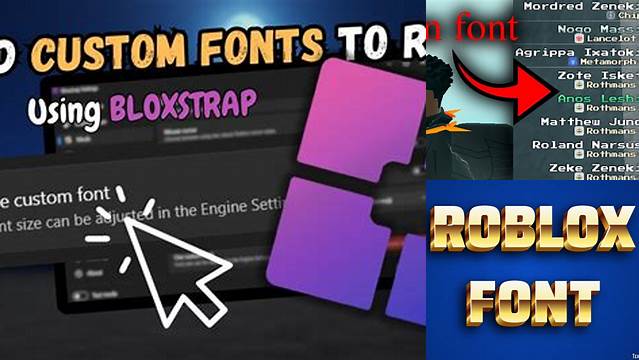
Roblox Studio Custom Fonts: Enhance Your Game's Text
Hey guys! Ready to level up your Roblox game design? This guide dives deep into Roblox Studio custom fonts, unlocking a whole new world of creative possibilities for your games. Forget those basic default fonts; we're talking about truly unique text that screams personality and professionalism. From understanding the basics to advanced implementation, we'll cover everything you need to know to make your game's text pop. Let's get started!
Unlocking the Power of Roblox Studio Custom Fonts
Roblox Studio custom fonts are more than just a cosmetic upgrade; they're a crucial element in shaping your game's identity and enhancing player experience. The default fonts, while functional, can quickly become bland and generic. Think about it – the text is everywhere in your game: menu options, in-game instructions, dialogue, and even the UI elements. Using the right fonts can significantly impact how players perceive your game, influencing their engagement and creating a more immersive environment. A well-chosen font can convey the mood, tone, and style of your game, drawing players in and encouraging them to spend more time in your virtual world. It’s like choosing the perfect outfit for your game; it sets the stage for the entire experience.
Beyond aesthetics, the appropriate use of Roblox Studio custom fonts also plays a pivotal role in readability and user experience. Legibility should be your top priority. You might love a fancy, ornate font, but it’s useless if players can’t easily read the text. Consider the context of your game and the demographic you're targeting. Are you aiming for a more youthful and energetic vibe, or a sleek and modern feel? The choice of font can make all the difference. In addition to readability, you can also use fonts to create emphasis and hierarchy within your game's text. By using a variety of sizes, weights, and styles, you can guide the player's attention, highlighting important information and making your game more intuitive to navigate.
Finding the Perfect Fonts for Your Roblox Project
Finding the right fonts is the first step on your Roblox Studio custom fonts journey. The vastness of options can be overwhelming, but worry not! Let's explore some key sources and considerations to help you select fonts that align with your game's theme and aesthetic. You’ll quickly discover that there’s a treasure trove of free and premium font resources available on the web. Websites such as Google Fonts, DaFont, Font Squirrel, and Behance offer a huge variety of font styles to choose from. These platforms allow you to download fonts in formats compatible with Roblox Studio, making the importing process a breeze. Remember to check the licensing terms before downloading. Most free fonts are available for personal use, but may require a license for commercial projects.
When choosing a font, consider your game's overall style. Is your game whimsical and cartoonish? Then you might want to opt for bold, playful fonts. For a futuristic sci-fi game, sleek, sans-serif fonts could be more suitable. Think about the mood and feeling you want to evoke. Fonts play a big role in creating atmosphere. Also, think about readability, particularly in the context of Roblox games, where the user interface might be small. You want to choose fonts that are clear, legible, and easy to read on various screen sizes. Avoid overly complex or ornate fonts that might be difficult for players to read. A good rule of thumb is to test your chosen fonts within your game environment to ensure they render correctly and are visually appealing. This will help you fine-tune your design and make sure everything looks perfect before launch.
Google Fonts and DaFont: Your Font Hunting Grounds
Alright, guys, let's get into some of the best places to find fonts for your Roblox Studio custom fonts journey. Google Fonts is a fantastic starting point. It’s completely free and packed with a massive collection of high-quality, open-source fonts. The platform has a user-friendly interface that allows you to easily browse, preview, and download fonts. Each font on Google Fonts has its own licensing, so make sure you review the details before using it in your Roblox game. For instance, many fonts are available under the Apache License 2.0, which generally allows for free commercial use, including in games. The site also allows you to filter fonts by various categories such as serif, sans-serif, display, handwriting, and monospace, which helps in narrowing down your search.
DaFont is another excellent resource with a massive library of fonts. Unlike Google Fonts, DaFont contains fonts submitted by various designers, including both free and commercial fonts. While it’s a treasure trove, it's essential to pay close attention to the license of each font. Many fonts are free for personal use, but might require a license for commercial projects. DaFont provides information on licensing for each font, so you know exactly what the conditions are. The site’s interface is also very user-friendly. You can browse fonts by category, themes, or styles. A great feature is that you can type in a sample word or phrase to see how it looks in a specific font before you download it. This helps you decide if it's the right fit for your game before you commit.
In addition to Google Fonts and DaFont, there are other options like Font Squirrel and Behance that can expand your font selection. Font Squirrel is another site with a curated collection of high-quality, free fonts. They also offer a font identifier tool where you can upload an image of a font and have it identified. Behance is a great place to discover unique fonts designed by artists and designers. While not all fonts are available for free download, the platform offers an excellent source of inspiration and a wide array of creative designs. When considering a font from these sources, always check their licenses to ensure that you meet all the legal and permission requirements for your project.
Importing Custom Fonts into Roblox Studio: A Step-by-Step Guide
Now that you've got your fonts selected, the next step is integrating them into your game using Roblox Studio custom fonts. This process involves a few essential steps. You'll learn how to upload your font files into the studio, and then apply them to your text elements. Let's begin. First, you’ll need to download your chosen font files. Most fonts come in .ttf (TrueType Font) or .otf (OpenType Font) formats, which are both compatible with Roblox Studio. Ensure you have the font file saved on your computer where you can easily locate it. Second, open your Roblox Studio project. Navigate to the